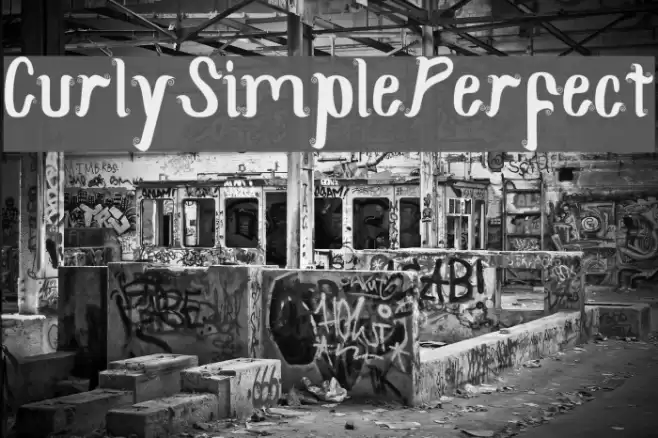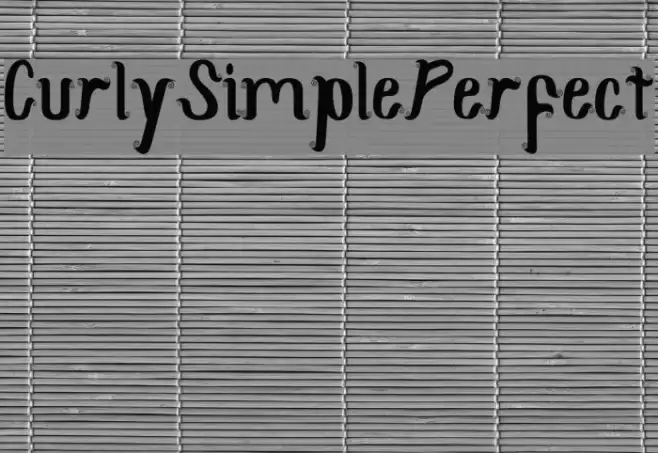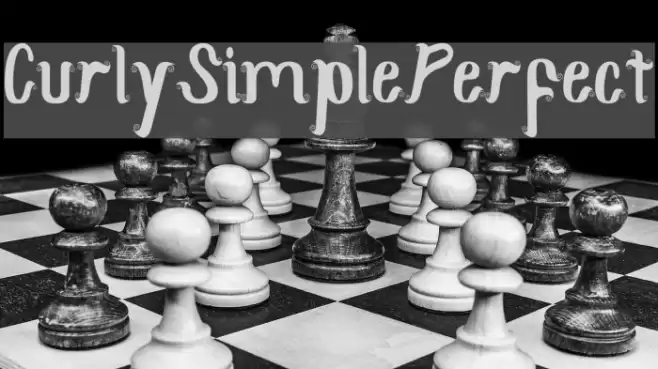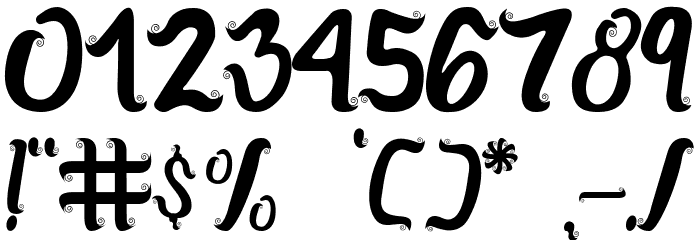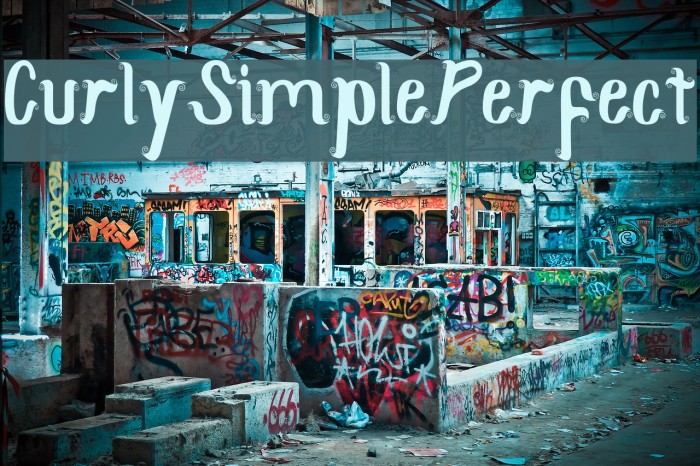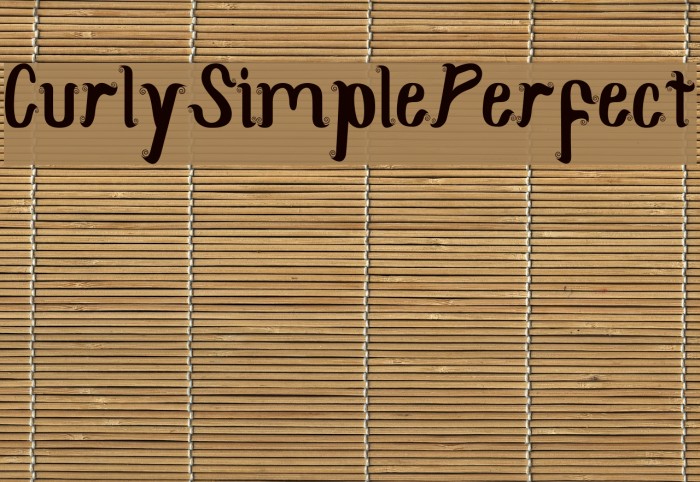
CurlySimplePerfect Font
CurlySimplePerfect Description
This font features a whimsical and playful design with curly embellishments on each character, giving it a unique and decorative appearance. The letters are bold and rounded, with a consistent stroke width that maintains readability while adding a touch of elegance. The uppercase and lowercase letters share a similar style, with the lowercase characters being slightly more compact. Numbers and special characters follow the same decorative theme, making this font suitable for creative and artistic projects. The overall look is both fun and sophisticated, making it ideal for designs that require a touch of flair.
A whimsical, curly font with decorative embellishments and bold strokes from Curly fonts.